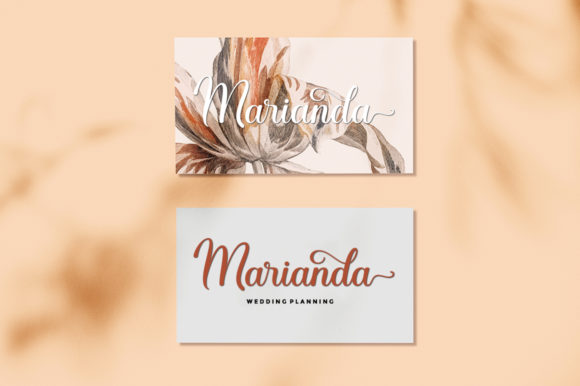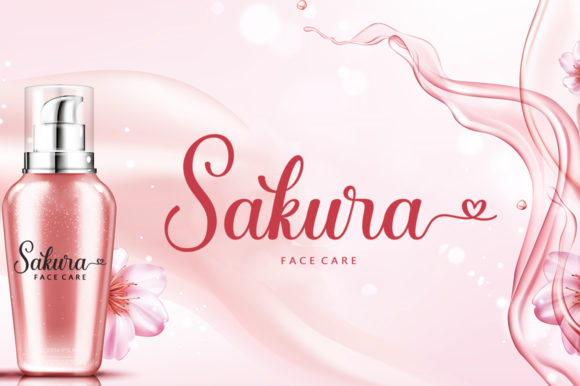
Baby Garland Font
db-ku.com - Script & Handwritten -- Baby Garland is a beautiful script font with a modern and elegant feel. It has a classy look that can be used for logos, branding, invitations, stationary, cards, wedding designs, social media posts, and any other design that requires a handwriting touch.